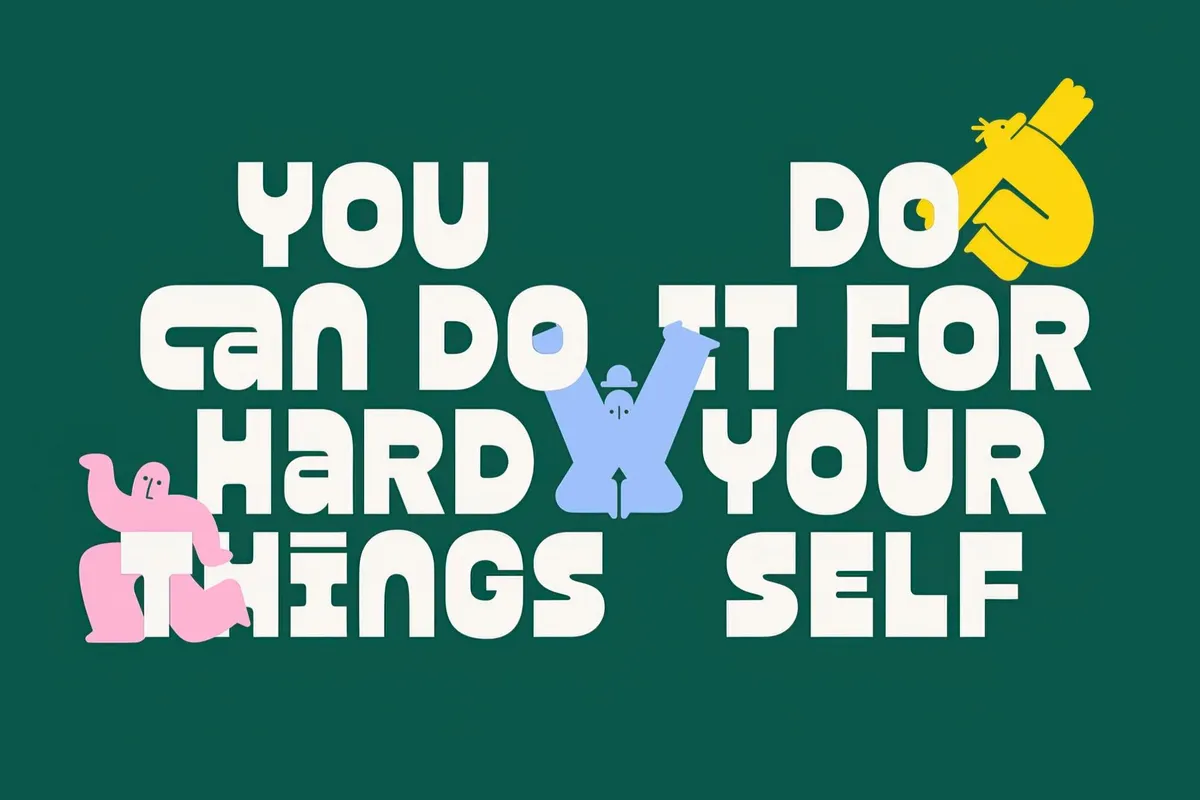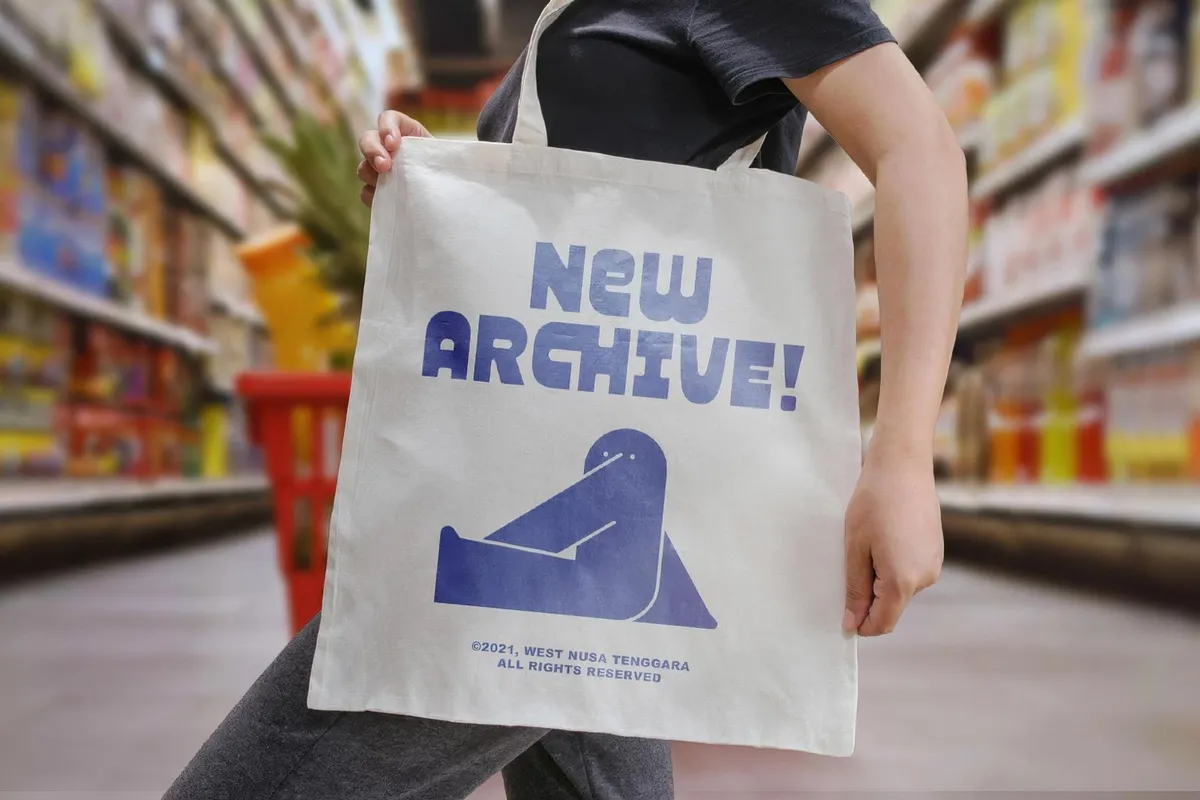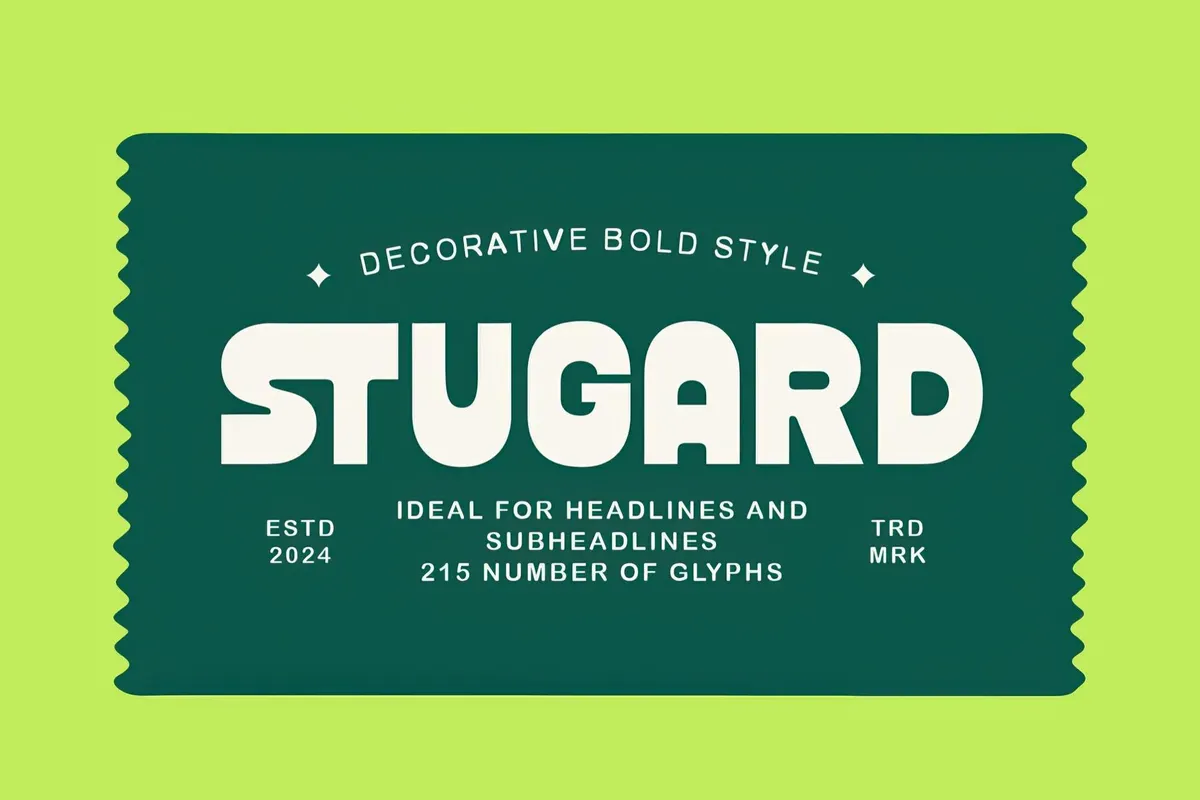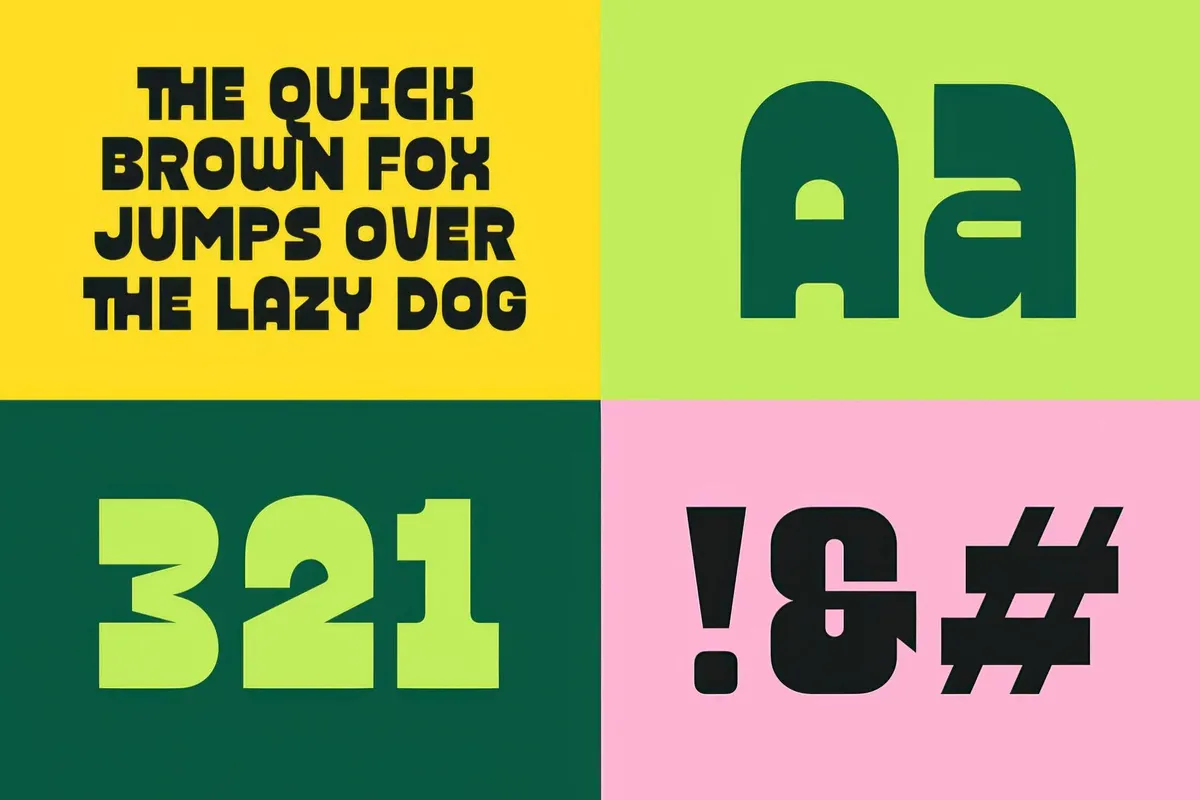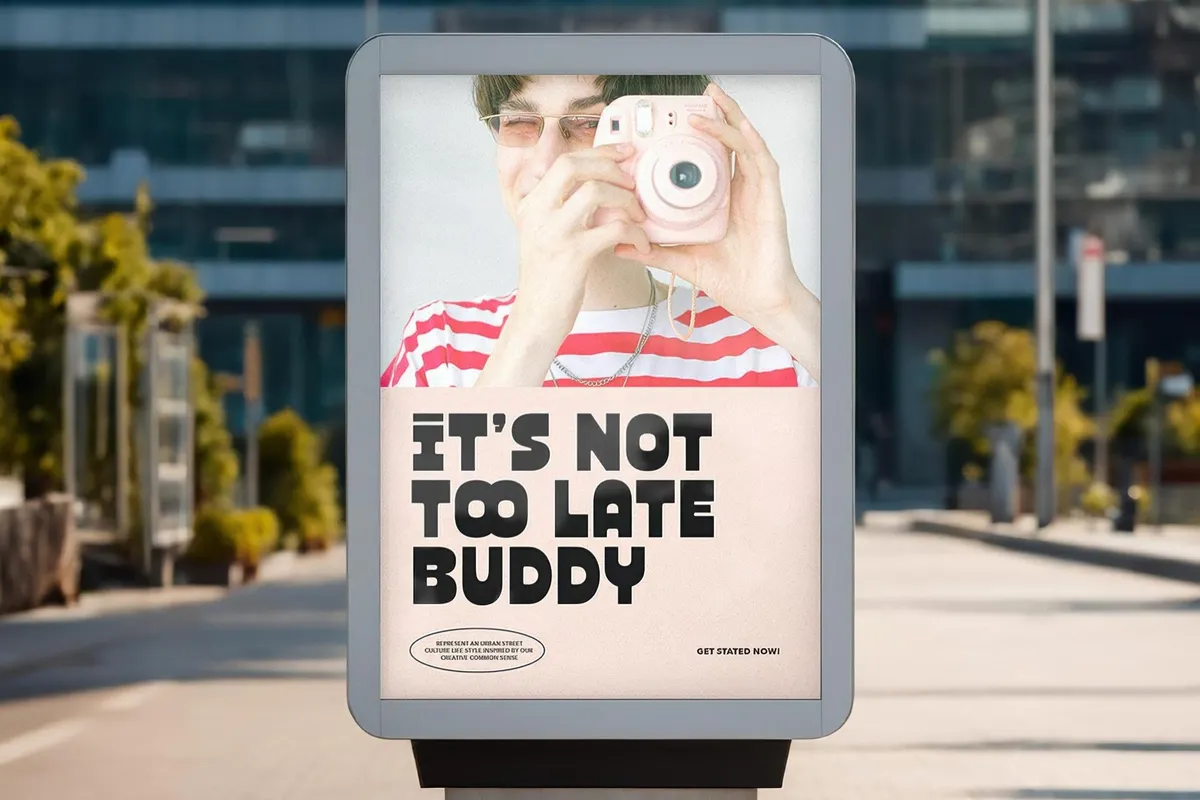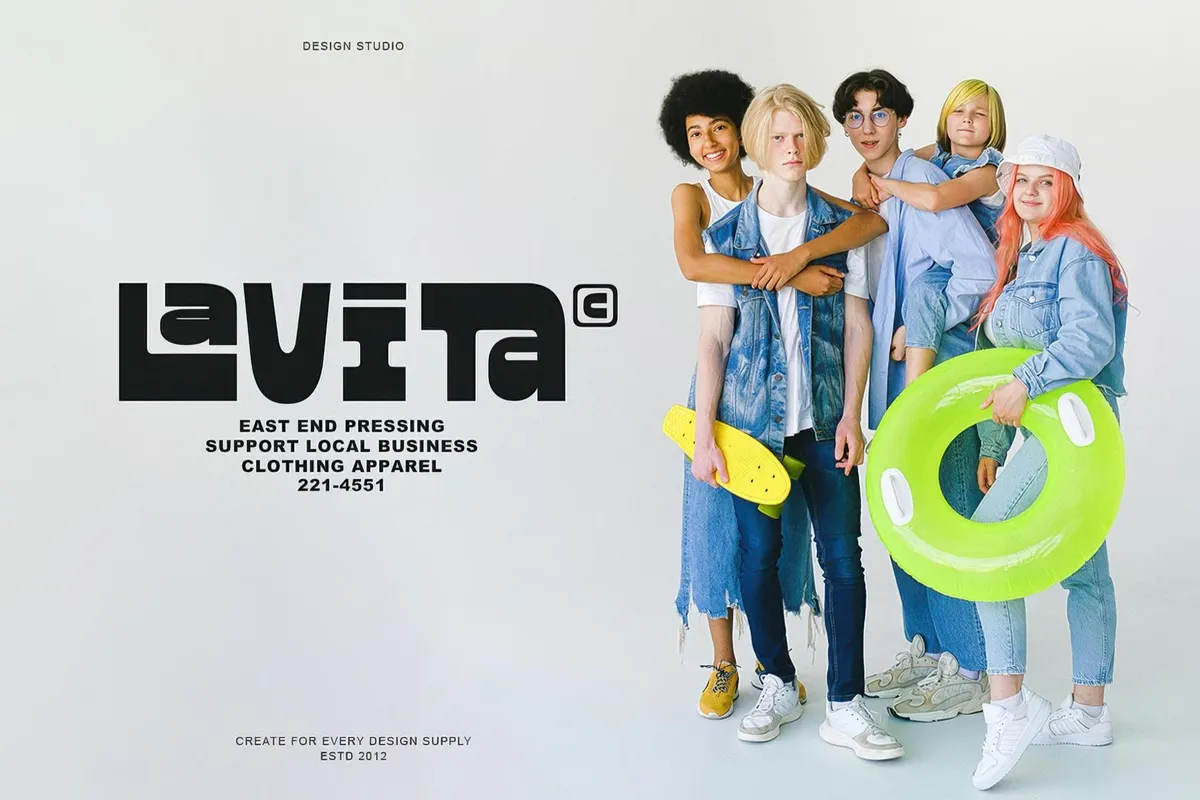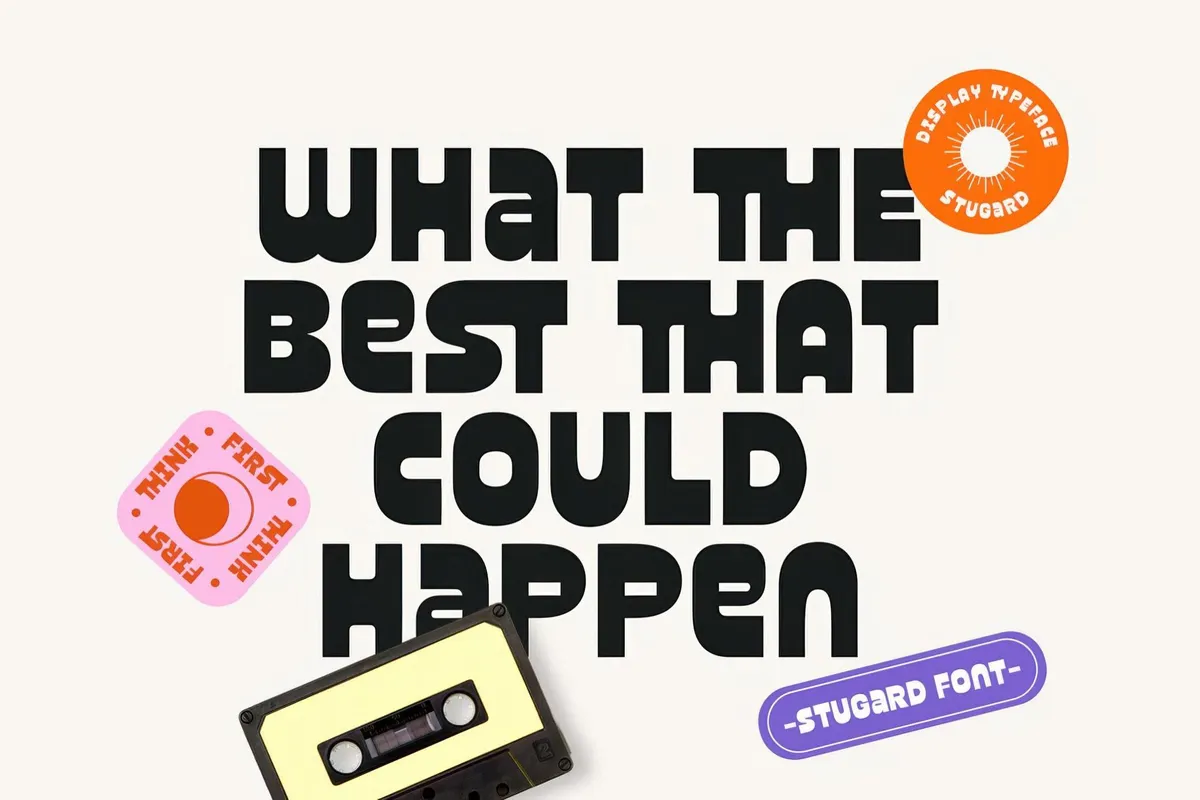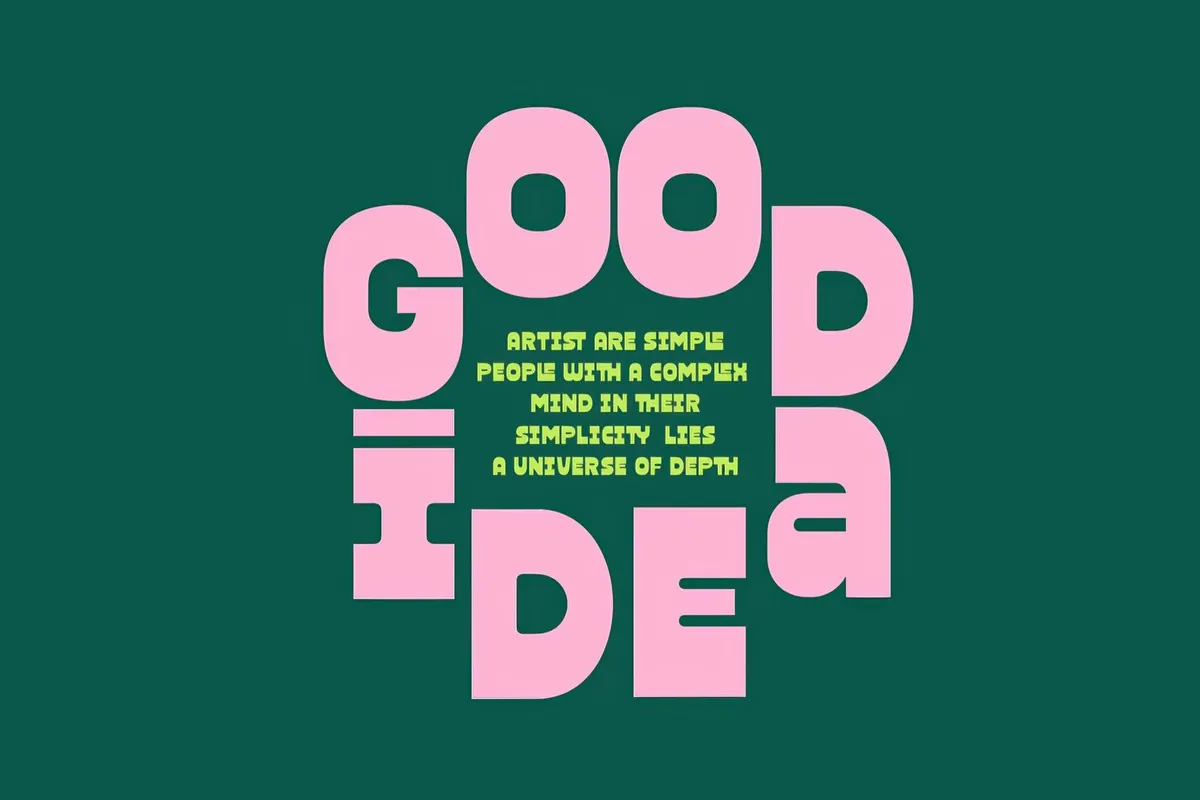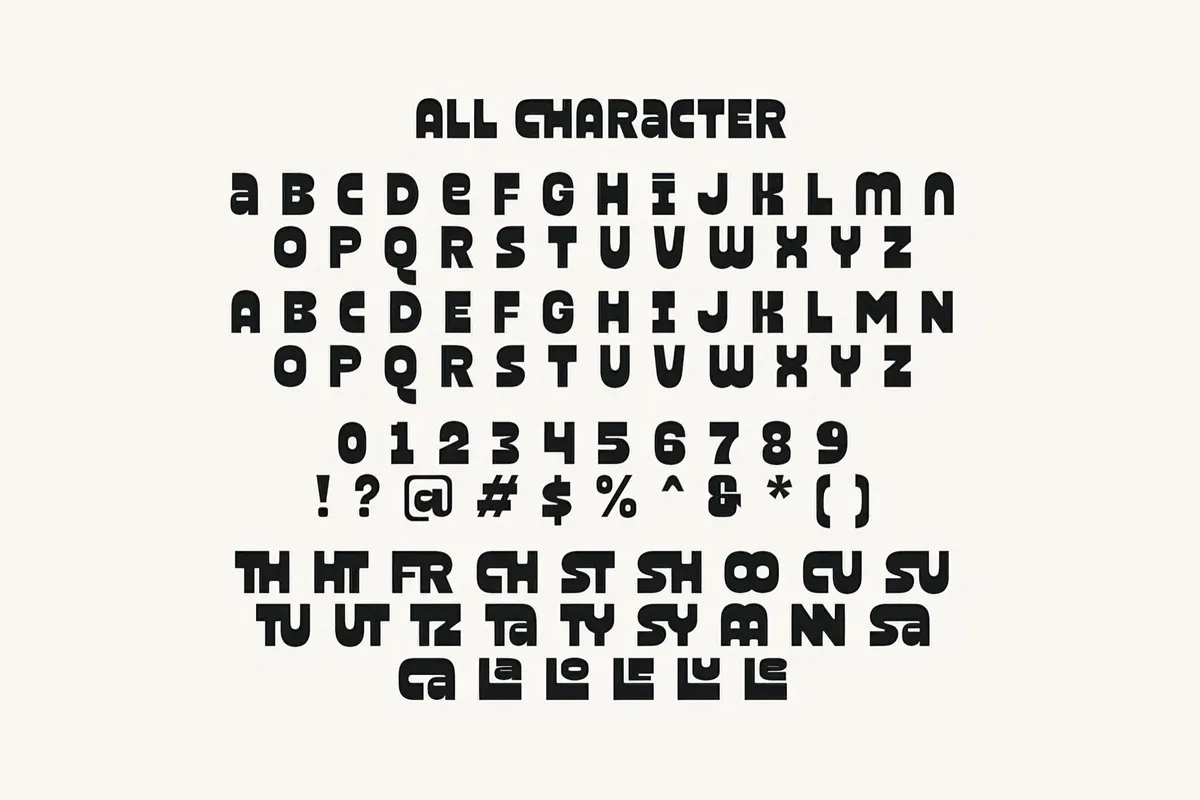
Stugard — Bold Reverse Font
Stugard font flips the script on traditional typography with its bold reverse-contrast design, where thick horizontals steal the show and verticals take a backseat. This unexpected weight distribution gives the font a dynamic, almost rebellious energy. It is ideal for designs that are here to make a statement like headlines, logos, and editorial layouts. The set of glyphs includes uppercase and lowercase letters, numerals, punctuation, and a series of sharp, well-crafted ligatures, all with multilingual support.